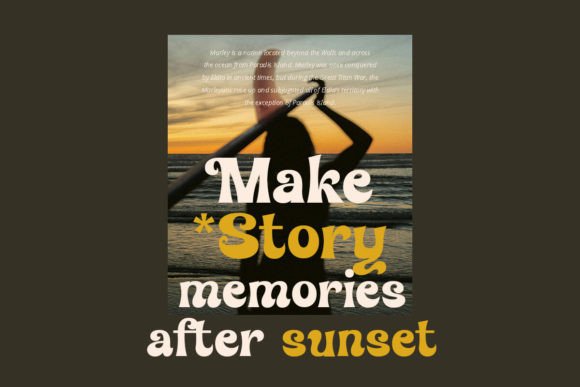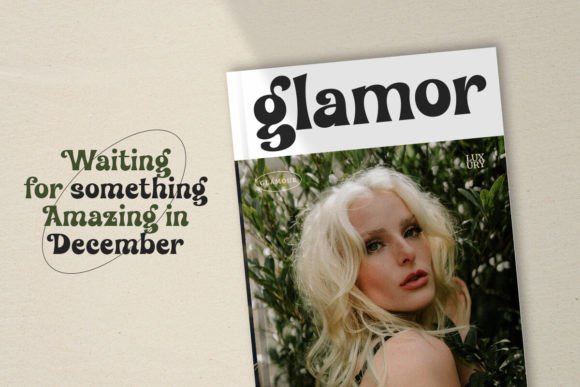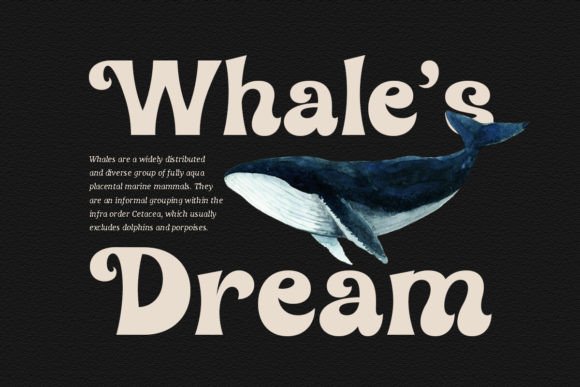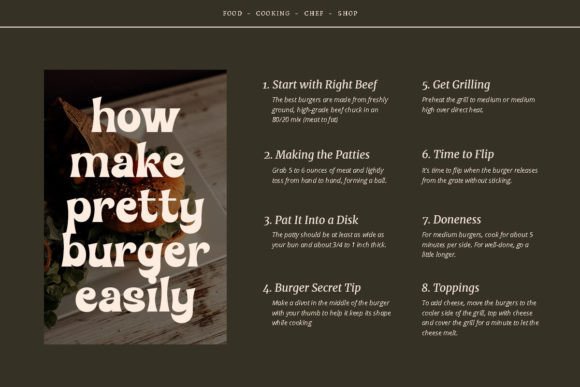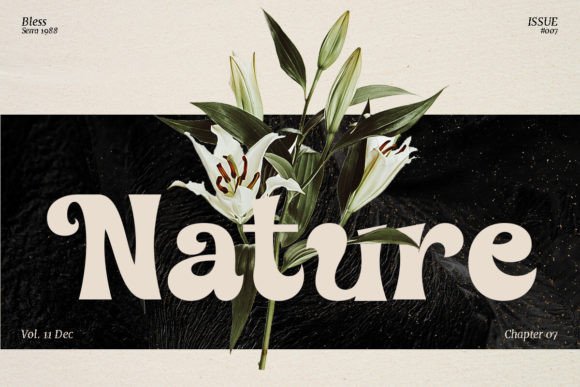
Salty Caramel Font – Free Download
Introduction to Salty Caramel Font
Introducing Salty Caramel – The Quintessential Modern Retro Font with Unique Characters.
| 👤 Author | Shakira Studio |
Salty Caramel is not just a font; it’s a delicious blend of modern aesthetics and retro charm Perfectly capturing the essence of #ModernRetro and #TypographyTrends, Salty Caramel is designed to elevate your creative projects.
Key Features of Salty Caramel Font
Why Choose Salty Caramel Font?